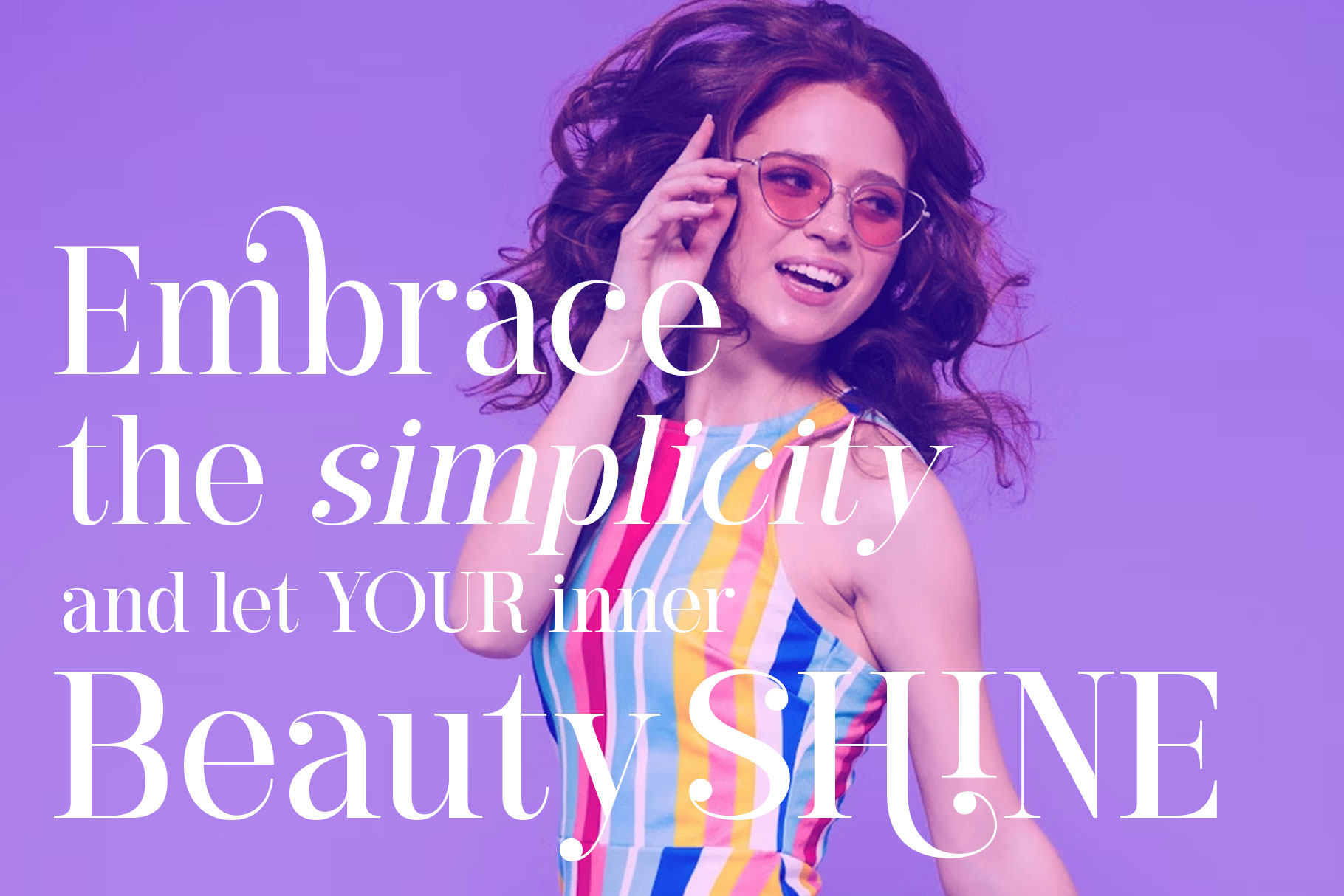
Hediora Elegant Display Serif Font
Hediora is elegant serif font inspire by fashion trend. Hediora come with modern character and touch of feminity. Hediora is a beautiful choice for any creative endeavor, creating elegant, modern, chic, lifestyle design such as logotype, title, cover, branding, invitations, wedding designs, display and magazine, social media posts, advertisements, printed quotes, product packaging, corporate brand, product designs, labels, photography, watermarks, special events and any other project with elegant touch.